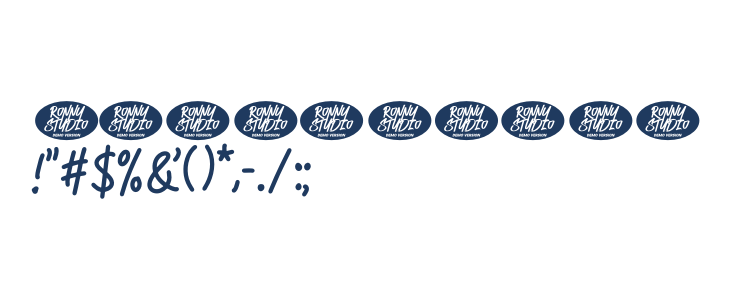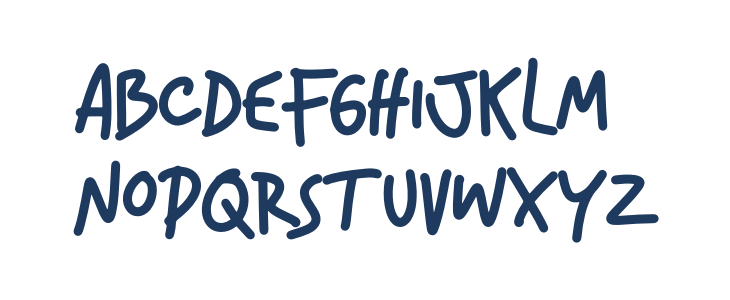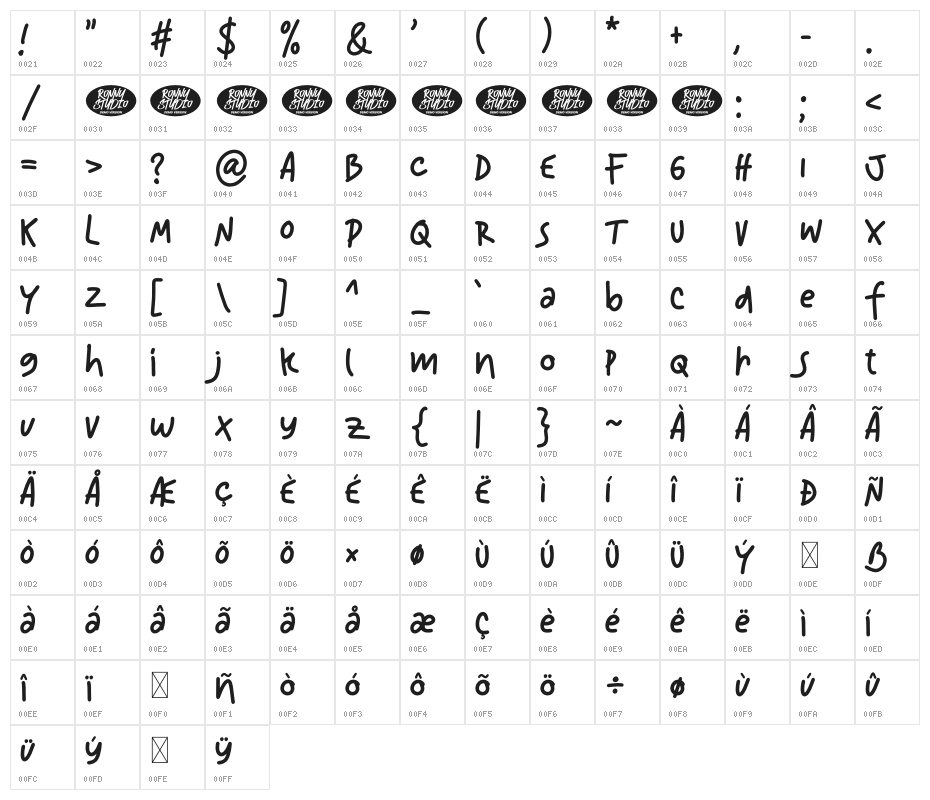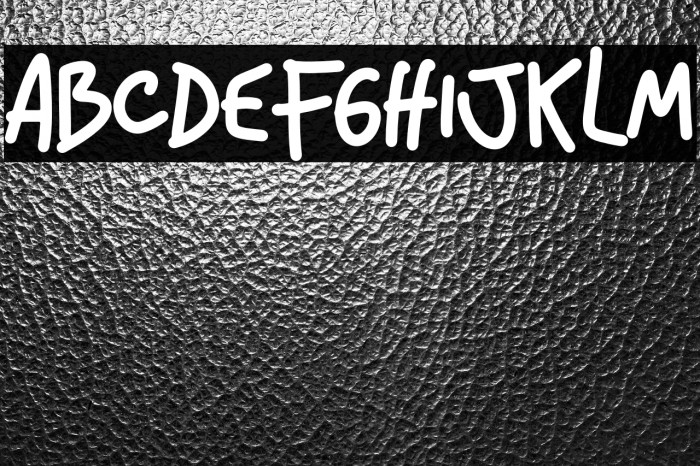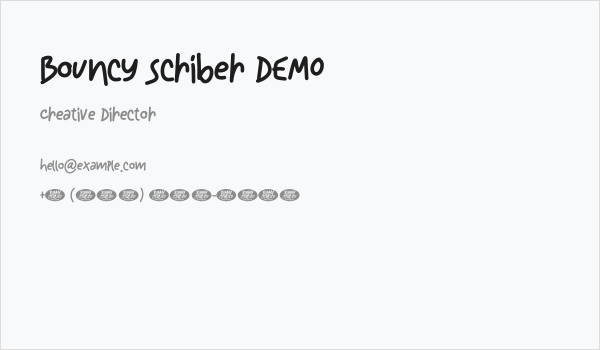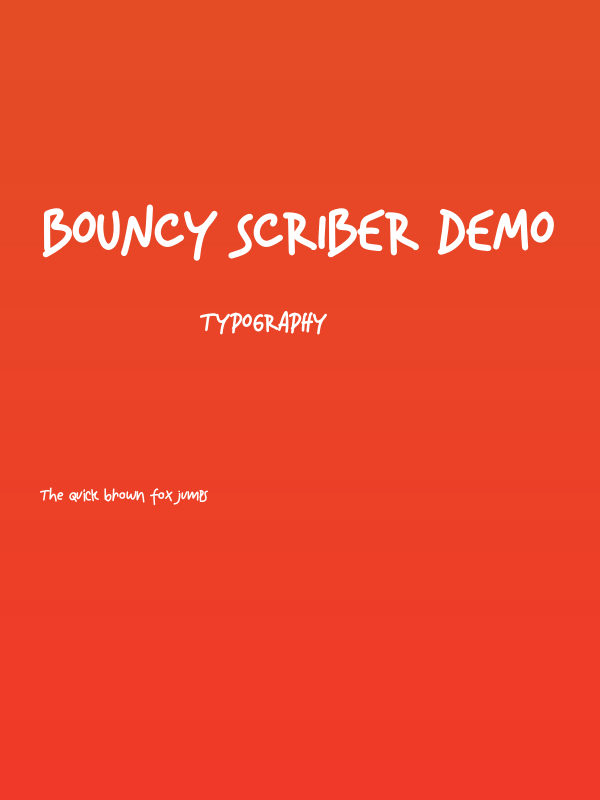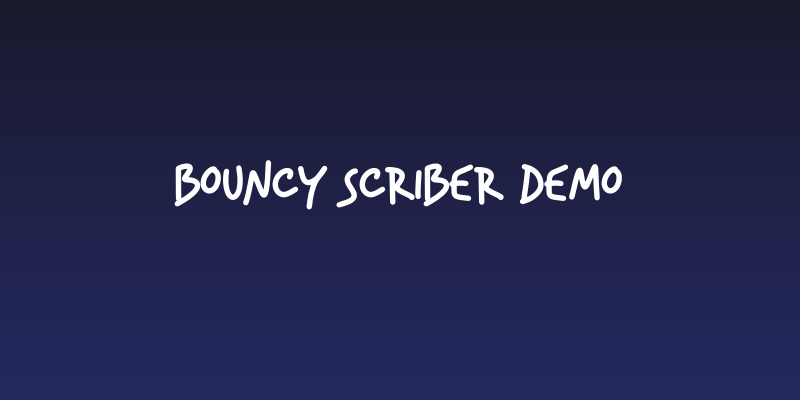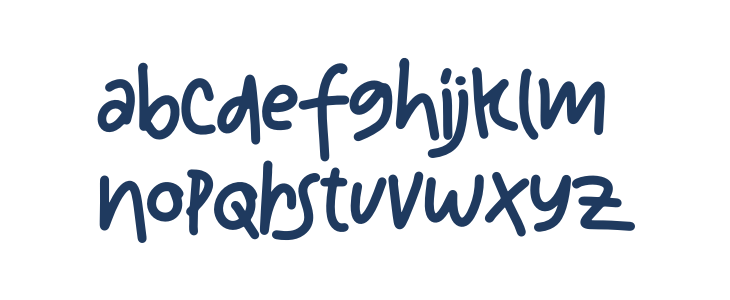
Bouncy Scriber DEMO Font
Bouncy Scriber DEMO Description
A playful, handwritten script with bouncy, irregular letterforms and rounded terminals, giving a casual and energetic feel. The strokes are consistent in thickness, and the characters have a loose, informal structure.
| Overall Style | Playful, Casual, Decorative |
| Use Case | Headlines, Logos, Posters, Informal Invitations |
| Proposed Projects | ChildrenΓ’β¬β’s books, greeting cards, posters, social media graphics, branding for creative businesses. |